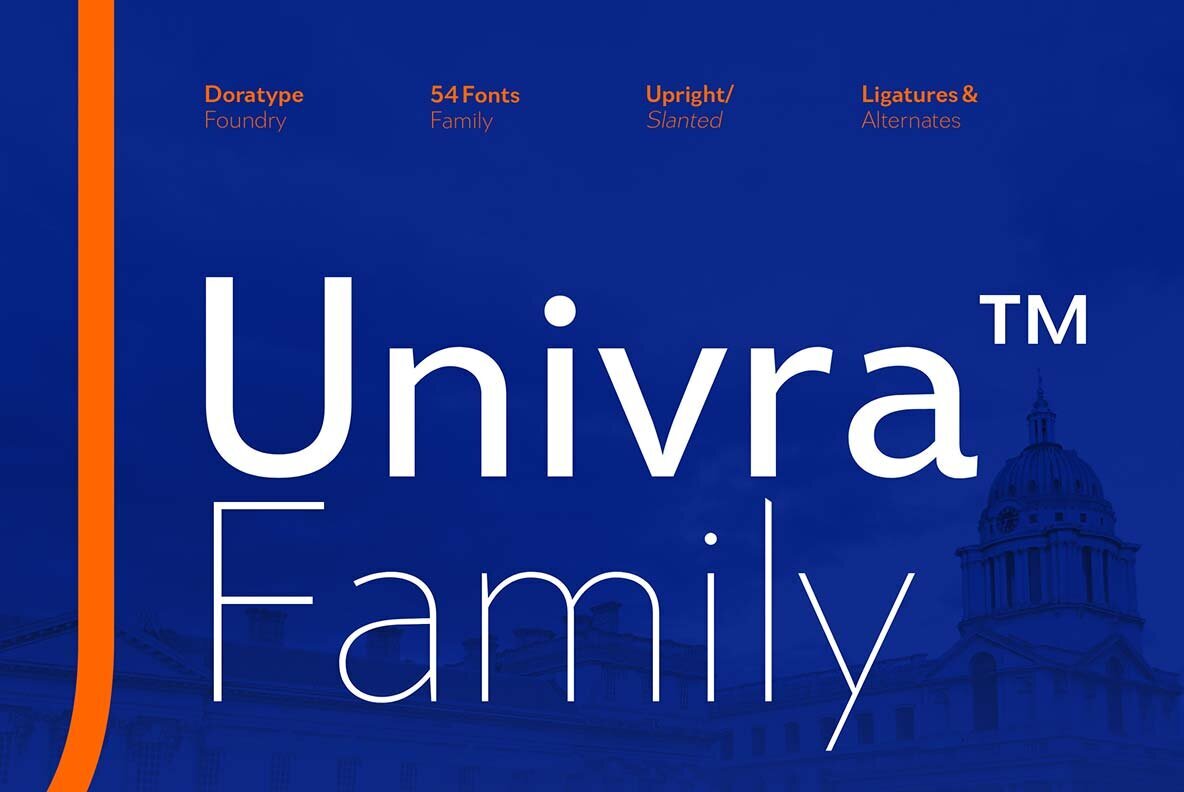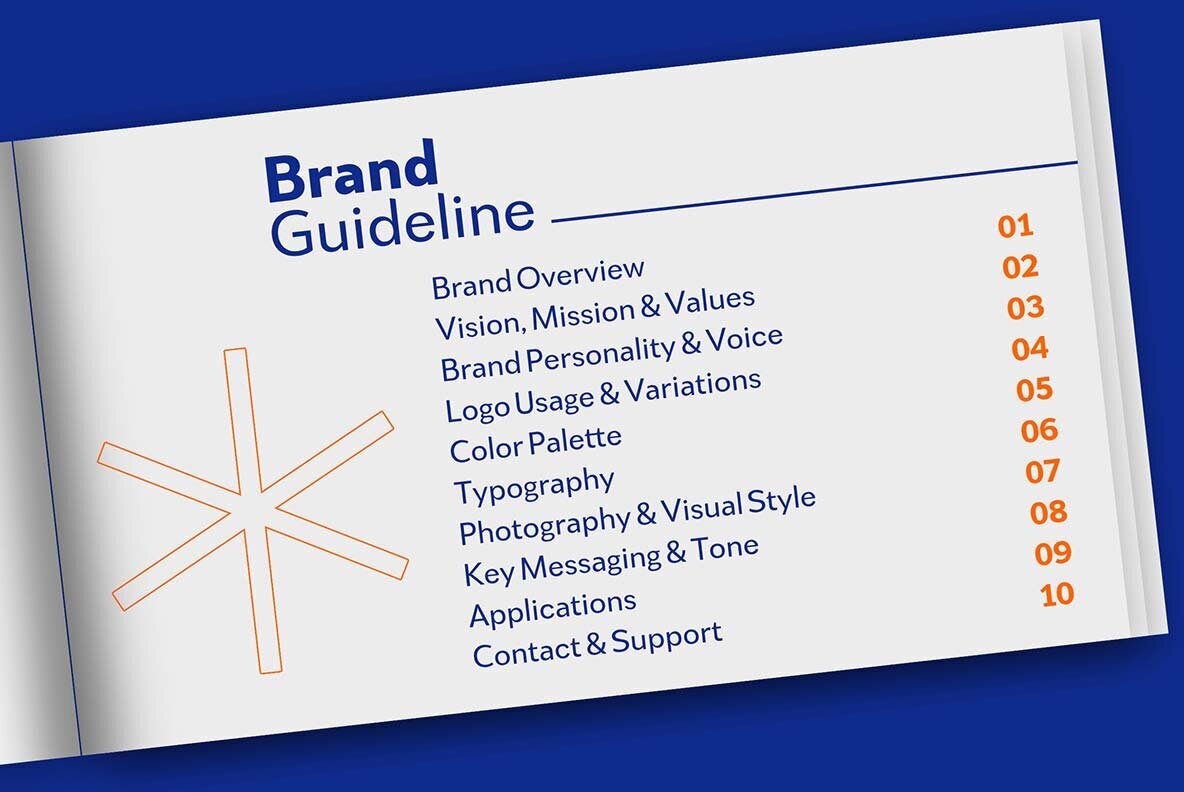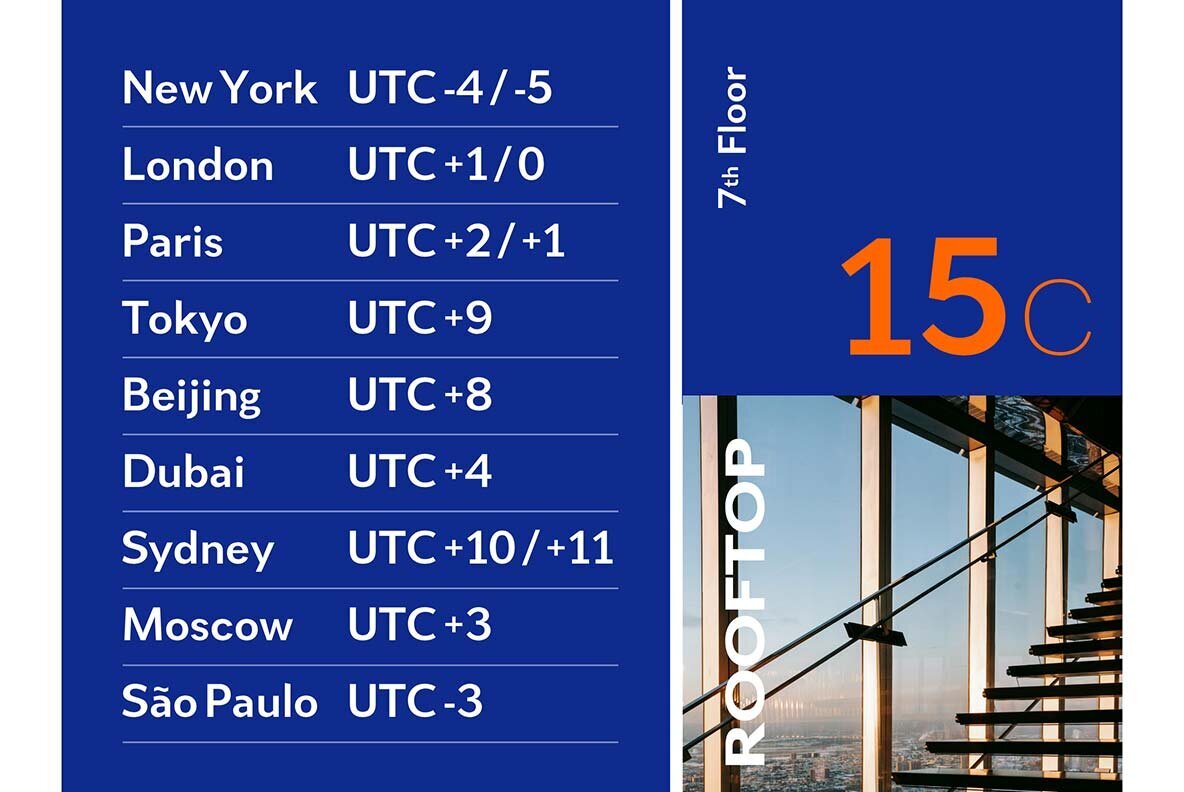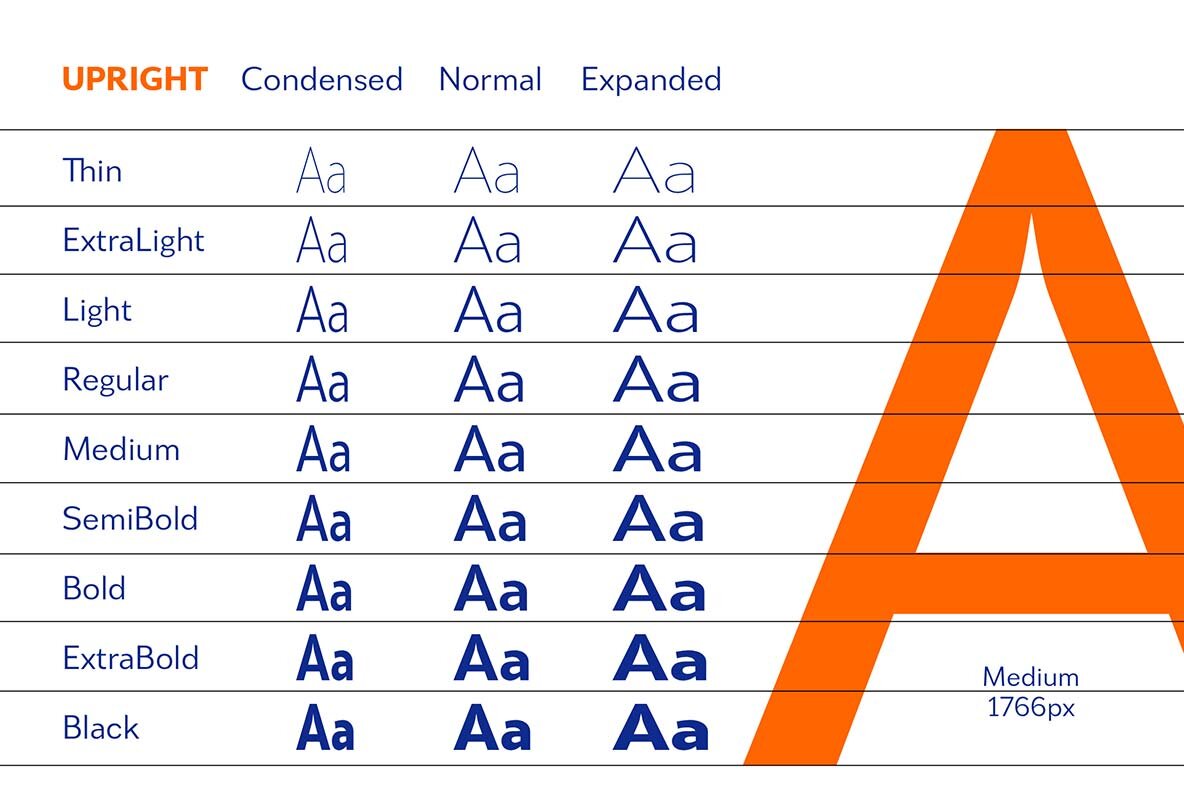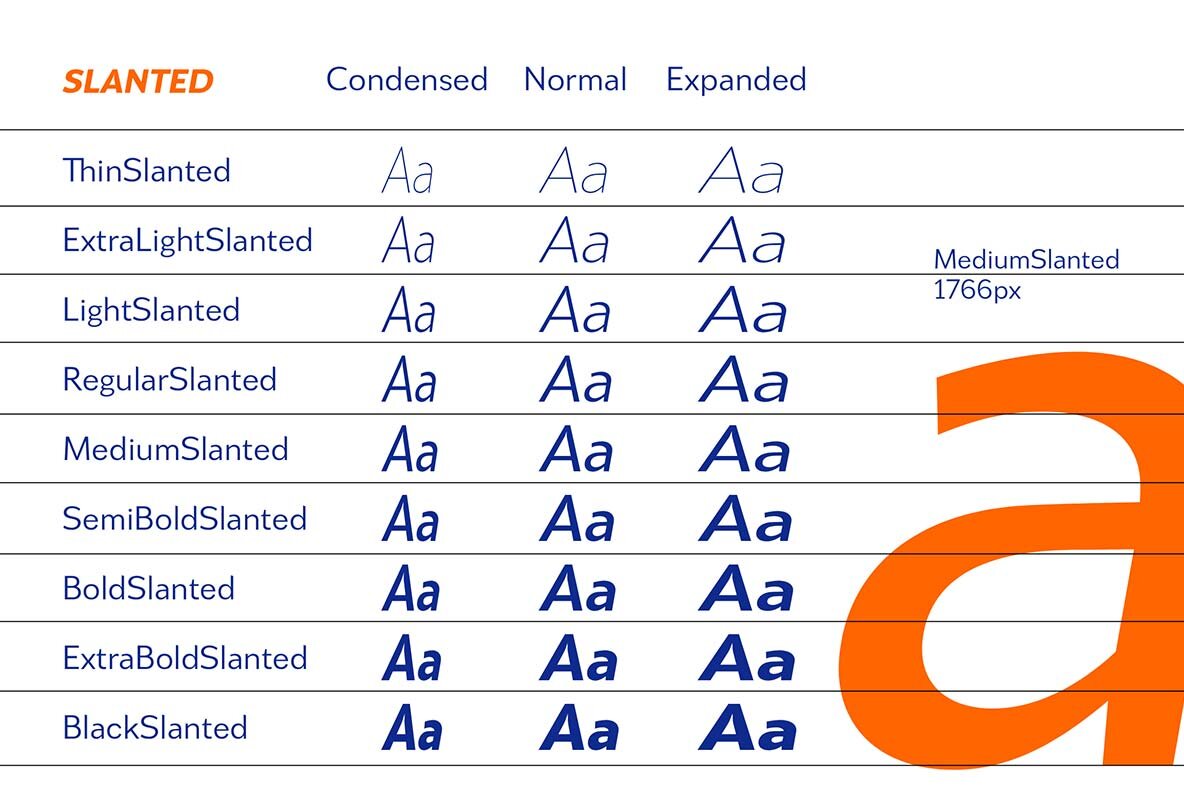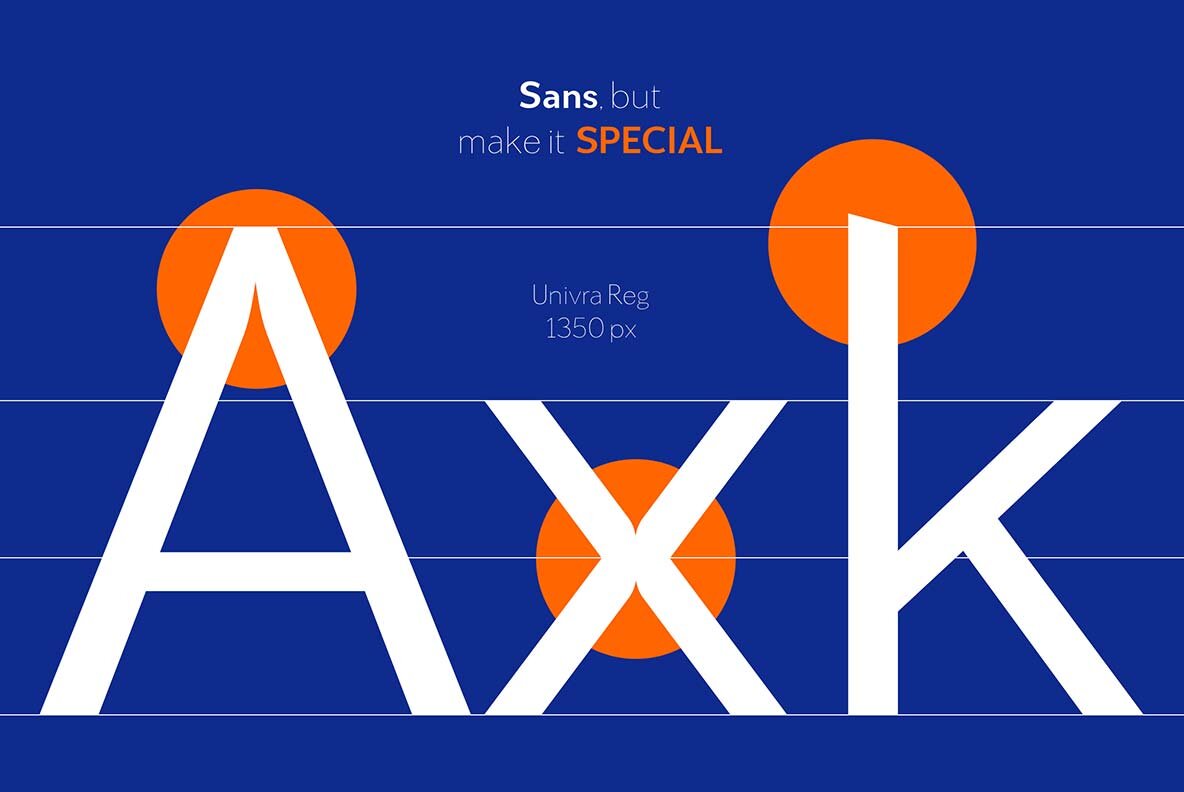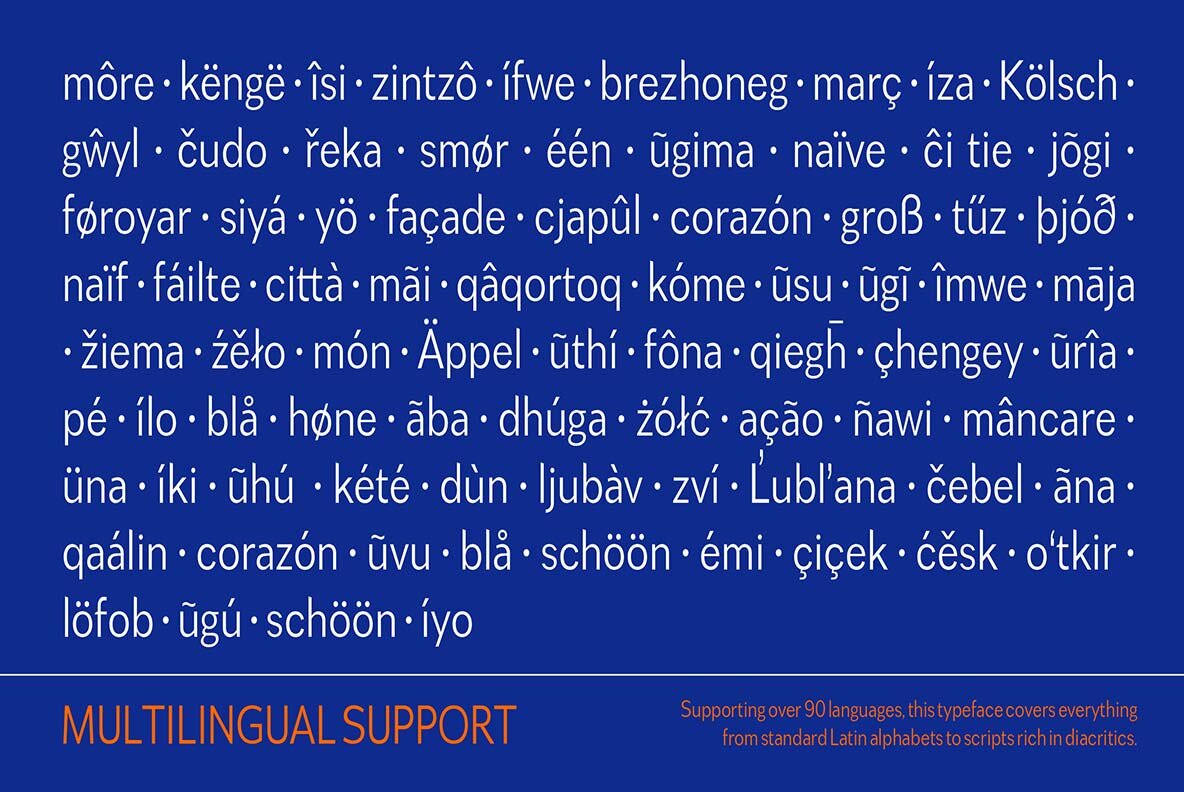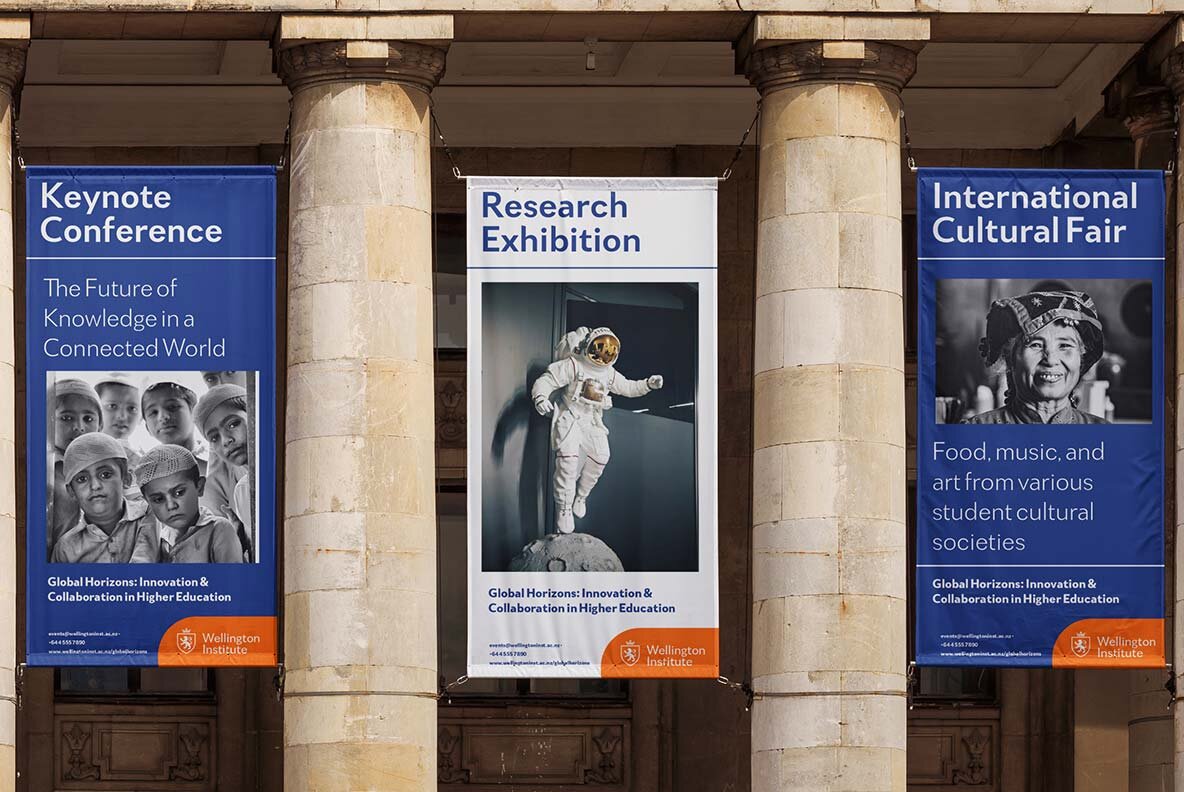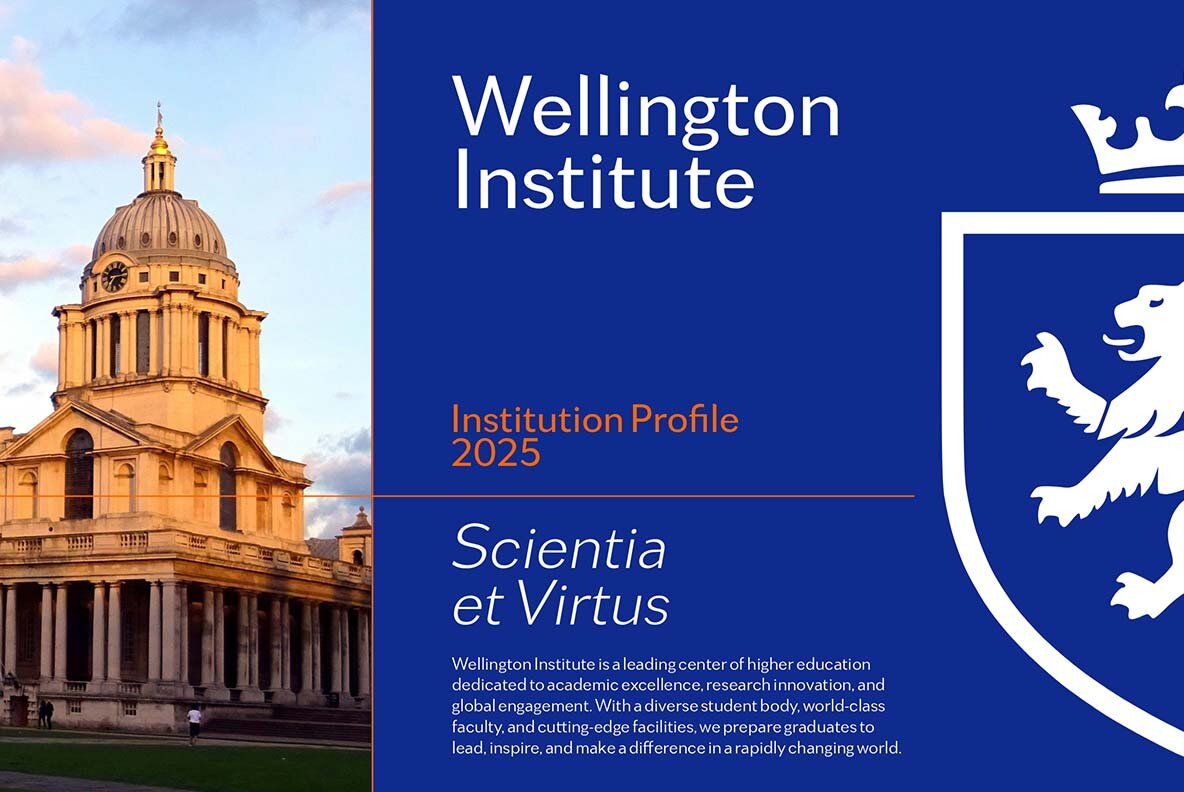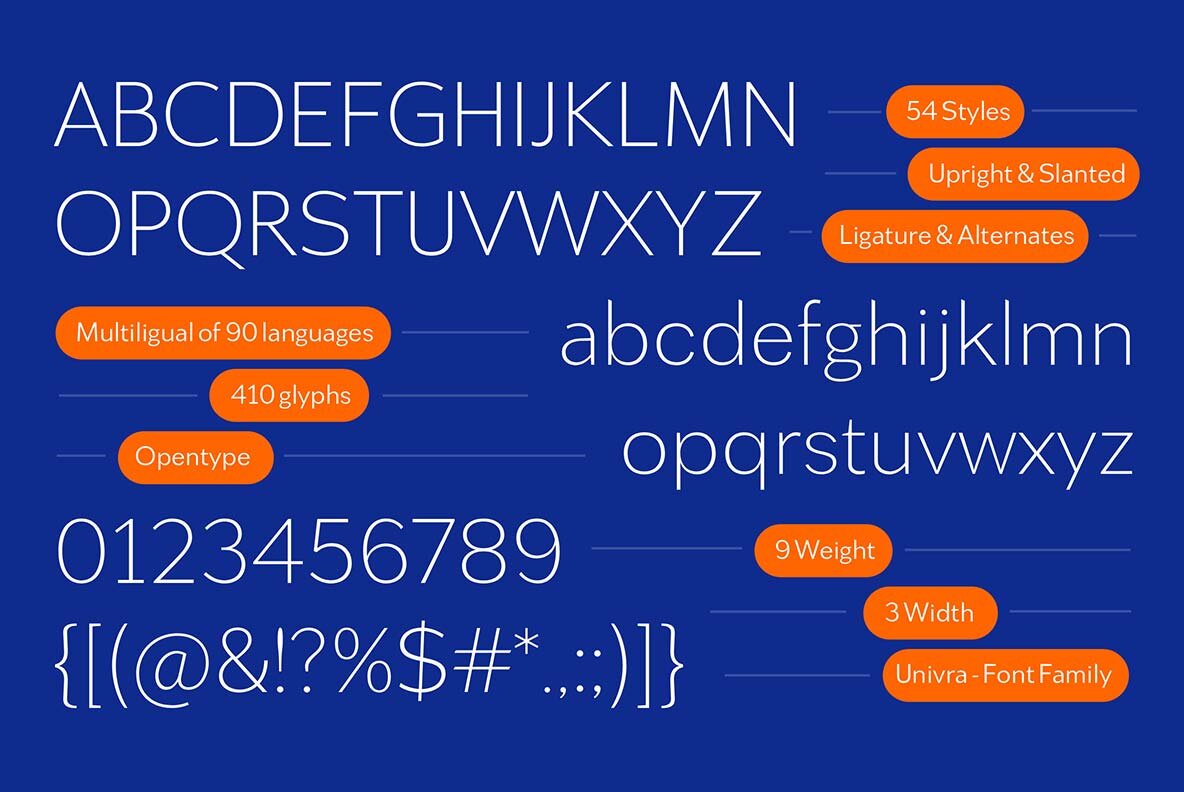
Univra Font
The Univra Family exemplifies modern typography with its clean, sans serif design, delivering high legibility across digital and print mediums. Comprising 54 styles from thin to extremely bold, paired with both upright and italic options, it offers unparalleled versatility in creating a cohesive visual hierarchy. This font's clarity and balance lend it to various design applications, including branding, visual identities, and editorial projects. Univra is elevated with ligatures and alternates, encouraging unique letter compositions. Its geometric precision and contemporary flair ensure a professional yet approachable aesthetic. This blend of elegance and typographic sophistication positions the Univra Family as an indispensable resource for designers pursuing both functionality and style in their projects.Univra Family: Minimalist Sans Serif Font Collection